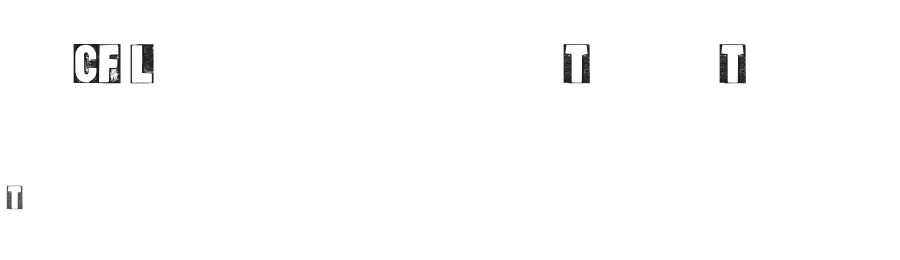
About Haji Type Font
Haji Type, designed by Darryl Soh, is a display typeface built for bold, commanding headlines and visual statements that demand attention. With 66 glyphs rendered in regular weight, this typeface delivers strong presence and clarity to any design calling for forceful, confident typography. Display fonts are engineered to work at display sizes where impact and legibility are paramount, making them essential tools for layouts where the typeface itself becomes a key design element. This category of font thrives when designers need headlines to carry real weight and presence across the composition.
Magazine and book cover headers, event poster designs, music album and EP artwork, podcast cover graphics, large-format vinyl decal projects, and bold social media campaign headers all showcase what Haji Type offers and delivers. The compact glyph set keeps layouts clean and focused, allowing the typeface's inherent strength to carry the visual communication effectively. Branding applications, packaging headers, and any project emphasizing direct, typographic statements benefit from the straightforward power this display font provides without unnecessary flourishes.
Haji Type Font is a display font that shines as a display or heading face. Pair it with a clean sans-serif or serif font for body text โ the contrast creates a clear hierarchy while the two styles stay balanced and easy to read.
Haji Type Font
by Darryl Soh